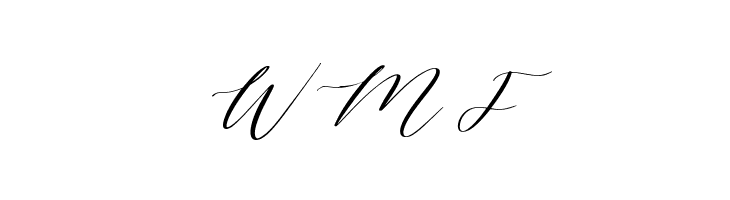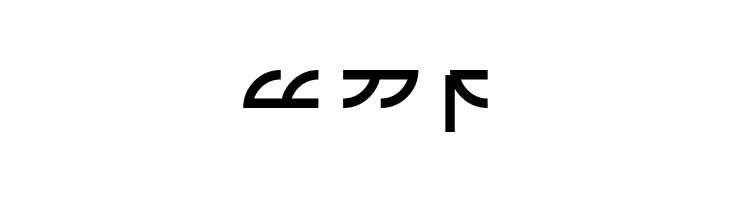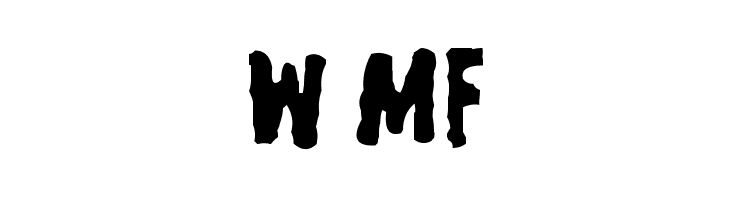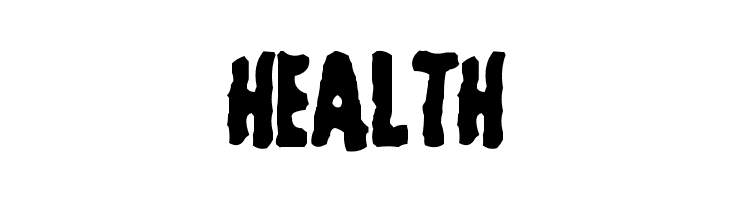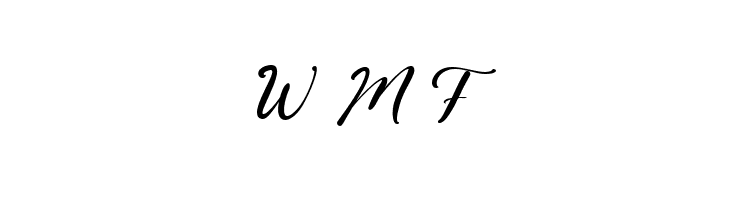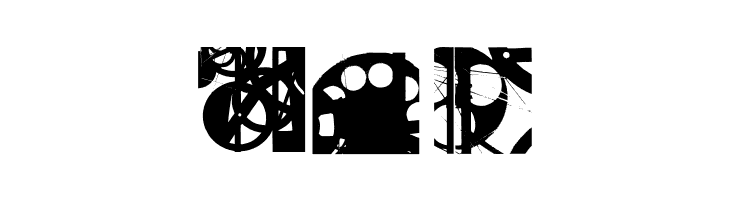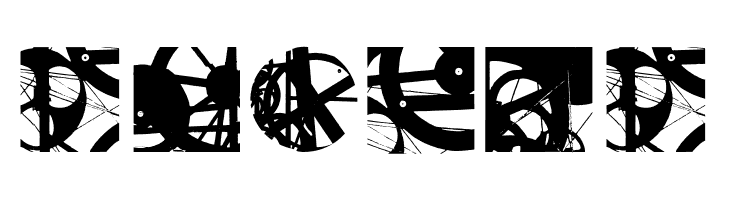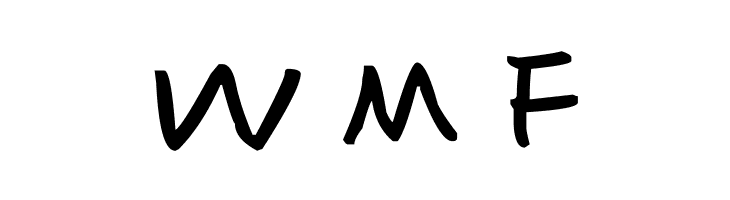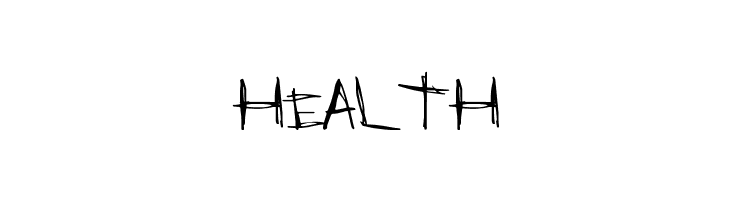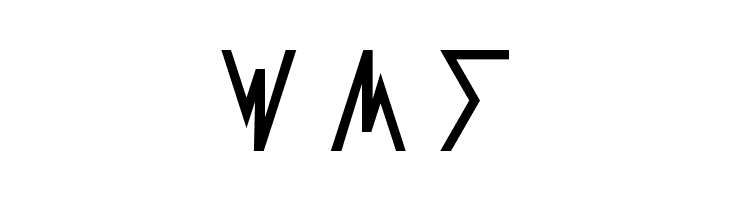
• laggastic
A bold, geometric font with sharp angles and a futuristic look.
• Lanitos Falls
An elegant, flowing script font with smooth, cursive letterforms.
• LaPresse
A bold, distressed font with a vintage, rugged appearance.
• LargeCrayon
A playful, hand-drawn crayon-style font with textured, uneven strokes.
• LArtPourLArtOne
A highly decorative and abstract font with intricate geometric patterns.
• Last Man on Earth
A bold, rugged font with a hand-drawn, distressed appearance.
• LateNights
A raw, hand-drawn font with an edgy and chaotic style.
• Latikana
A futuristic, geometric font with sharp angles and clean lines.
• Lavalamp
A playful, casual handwritten font with uneven strokes and organic flow.
• Lavineta Eisley
A sophisticated script font with fluid, cursive strokes and elegant design.